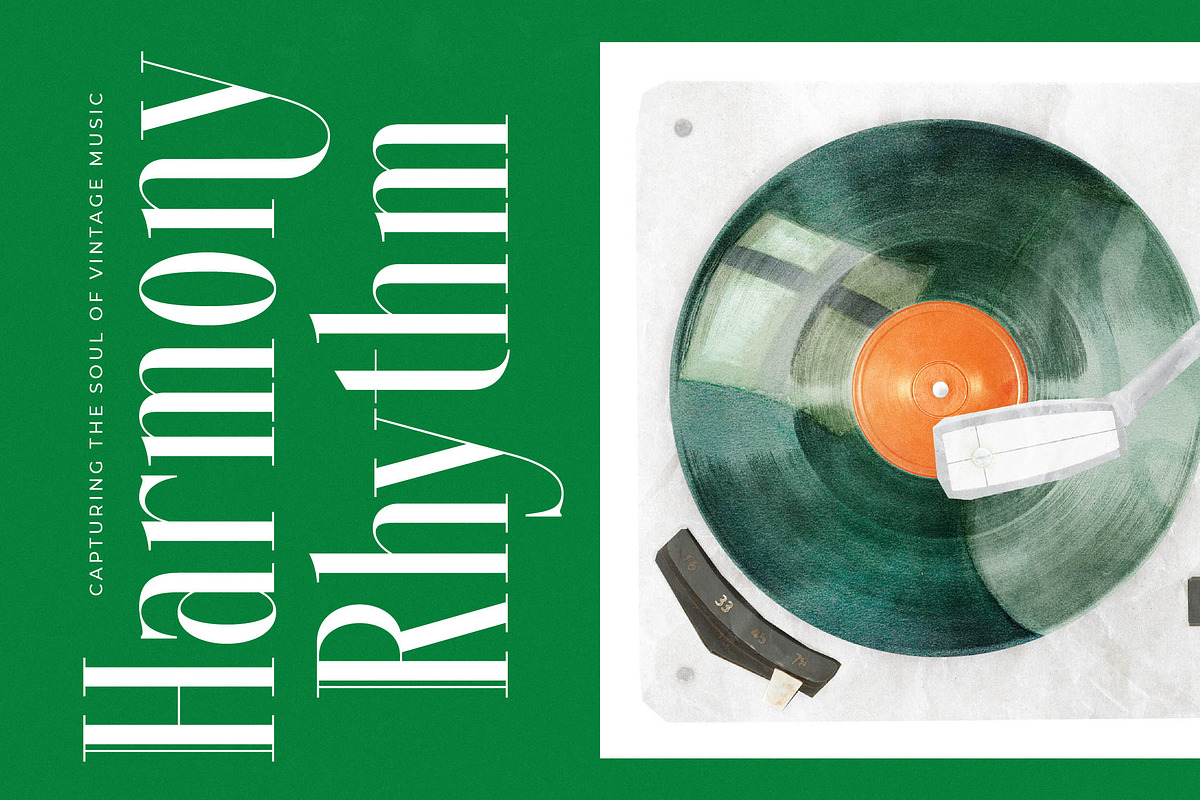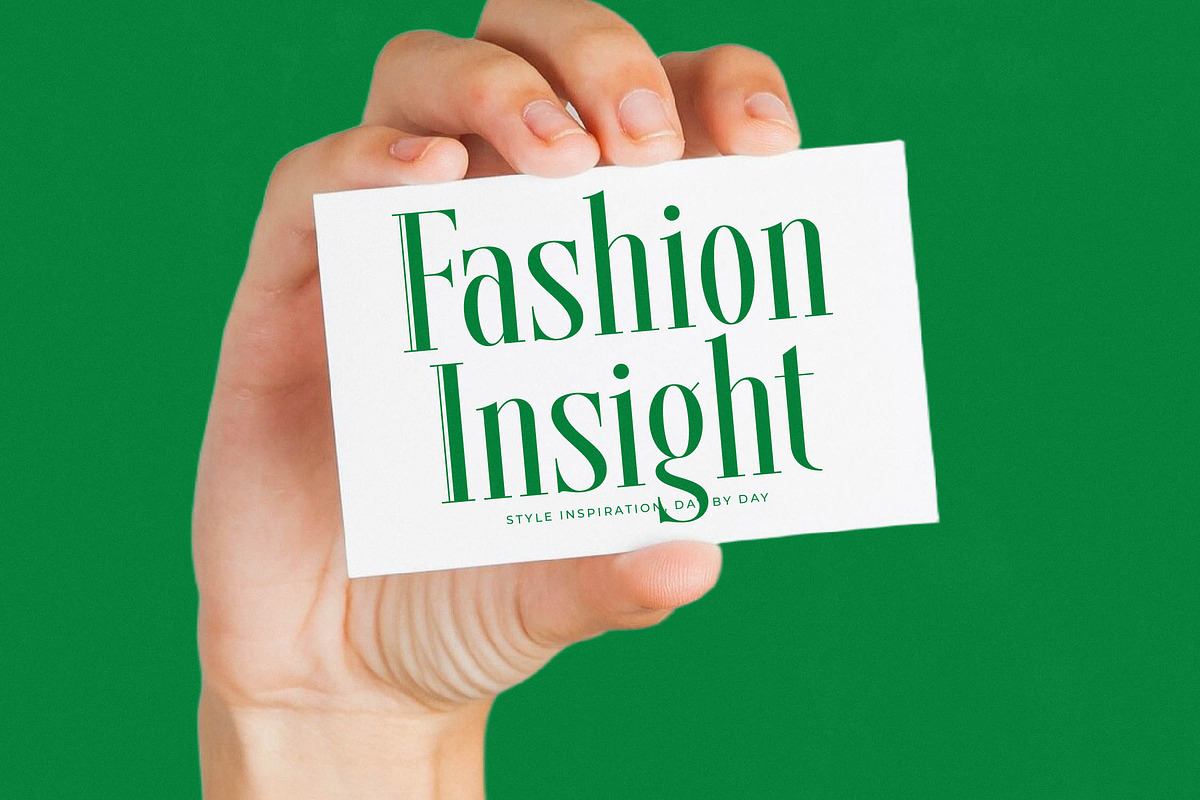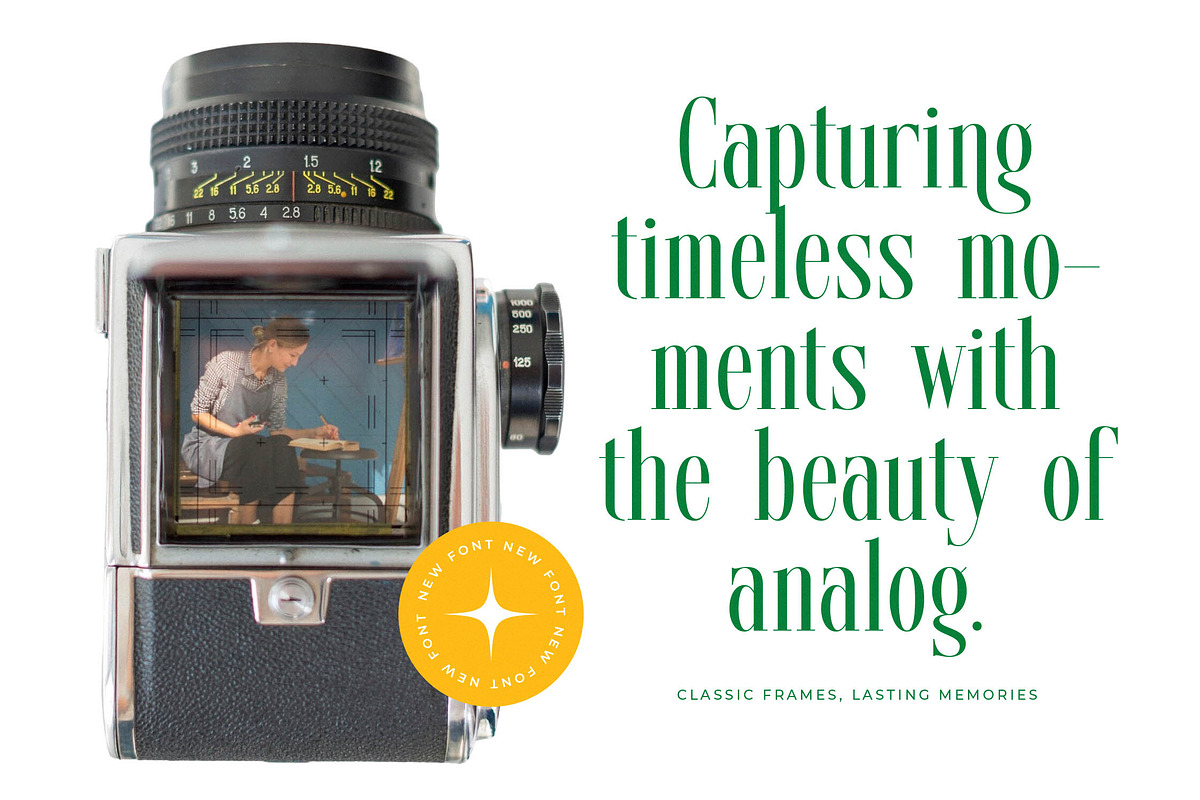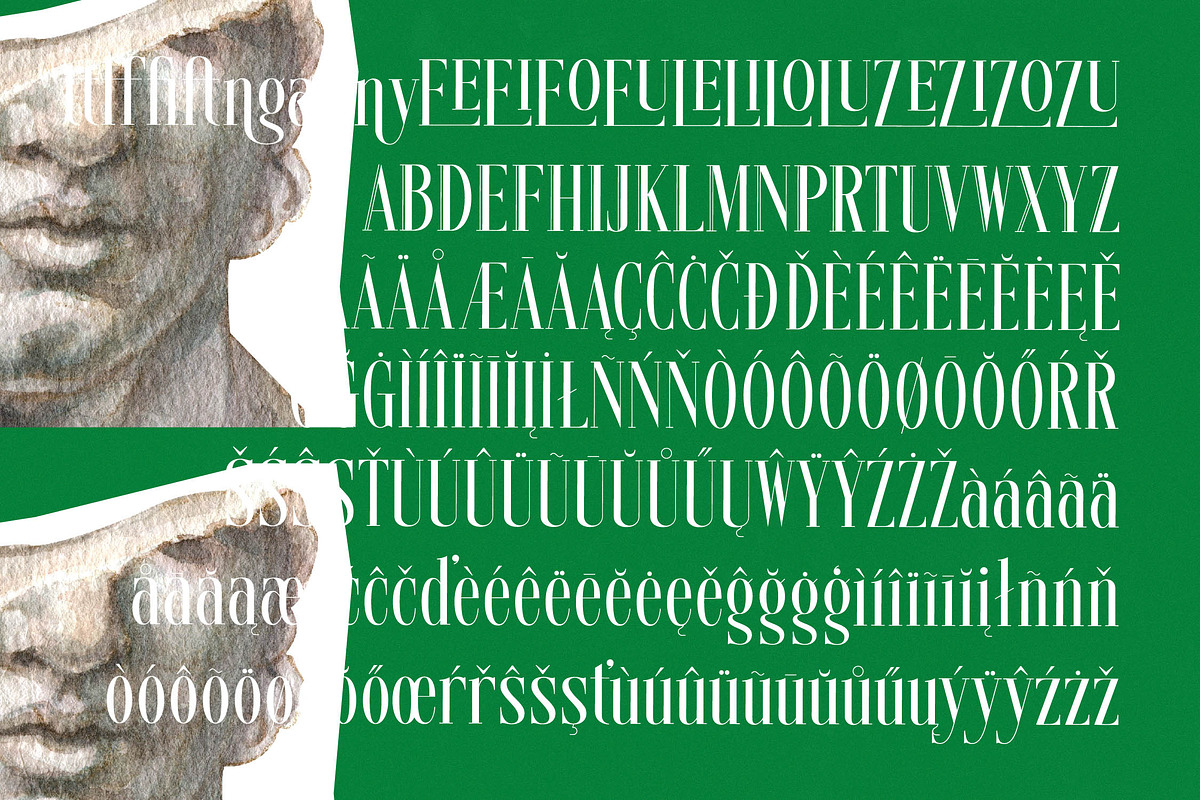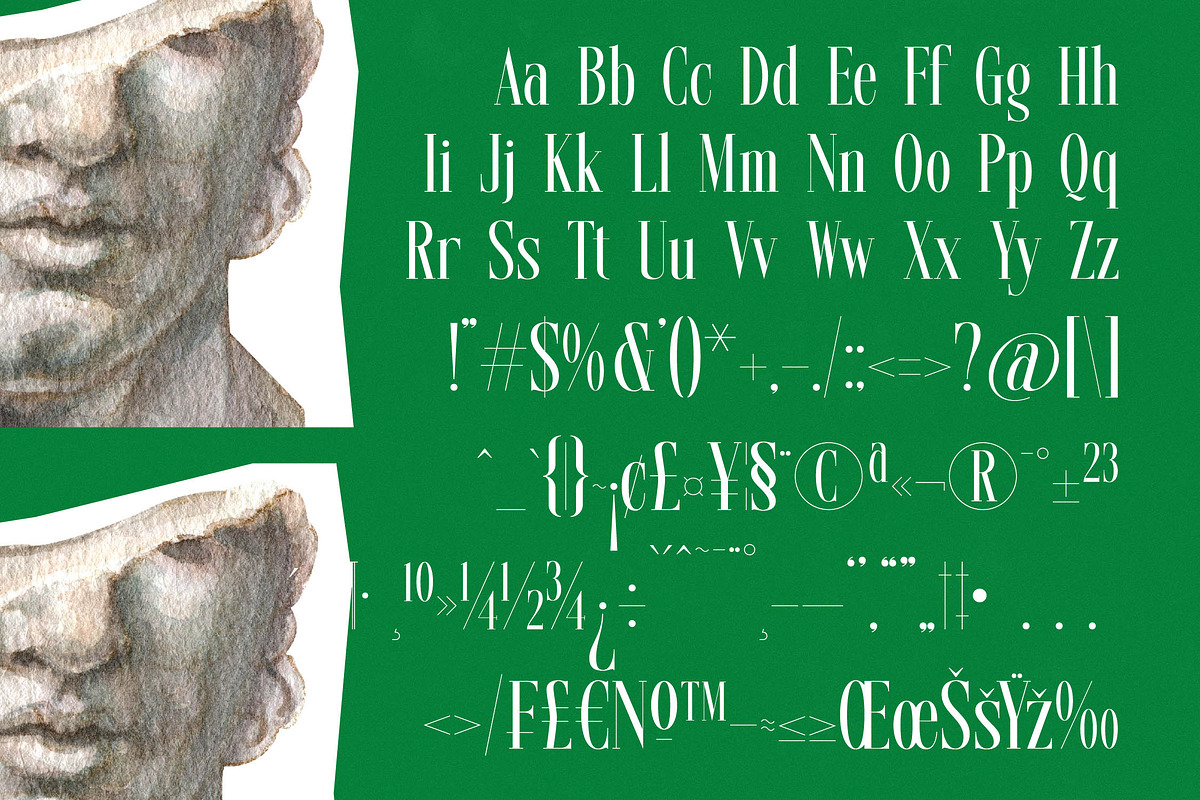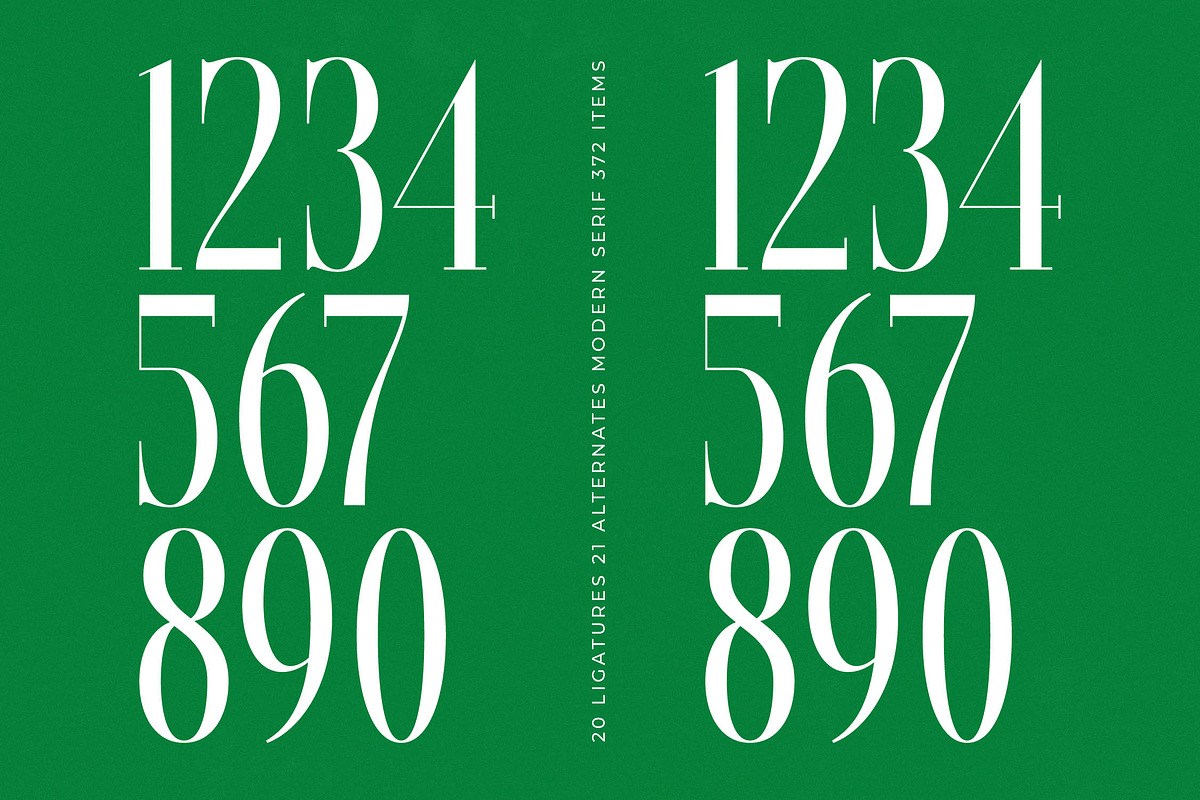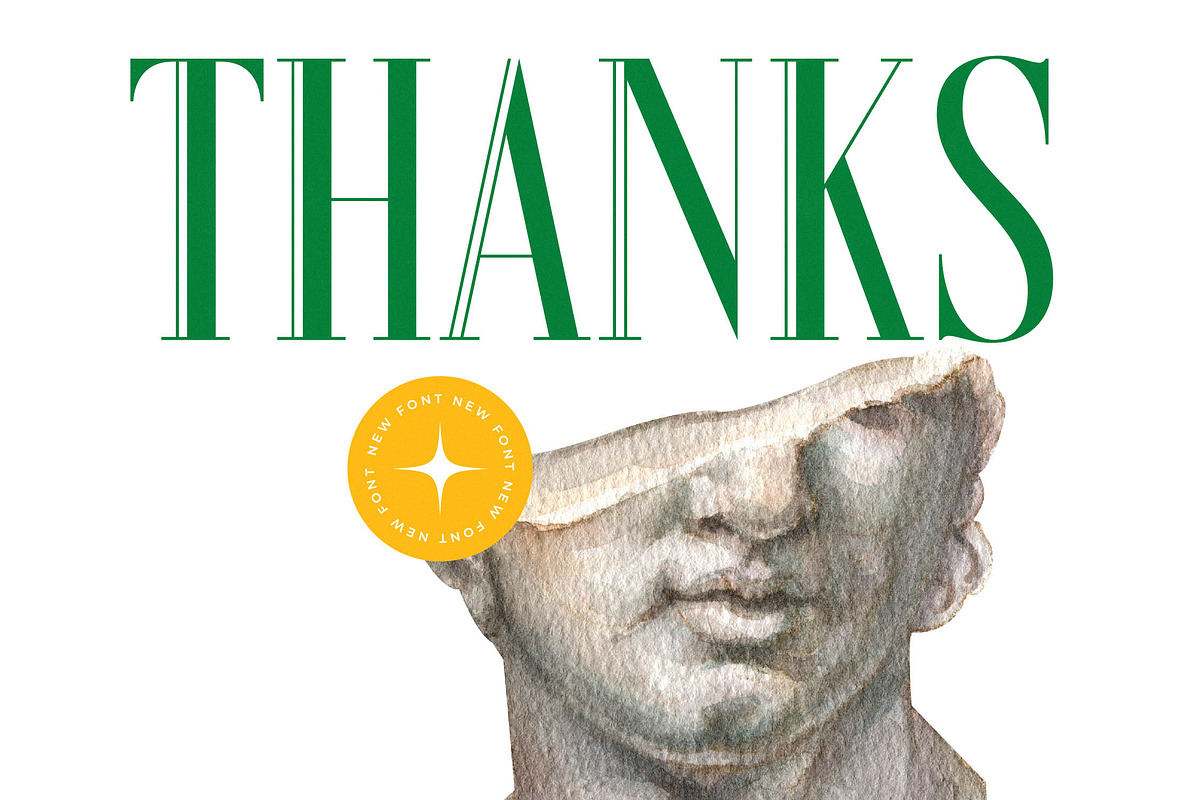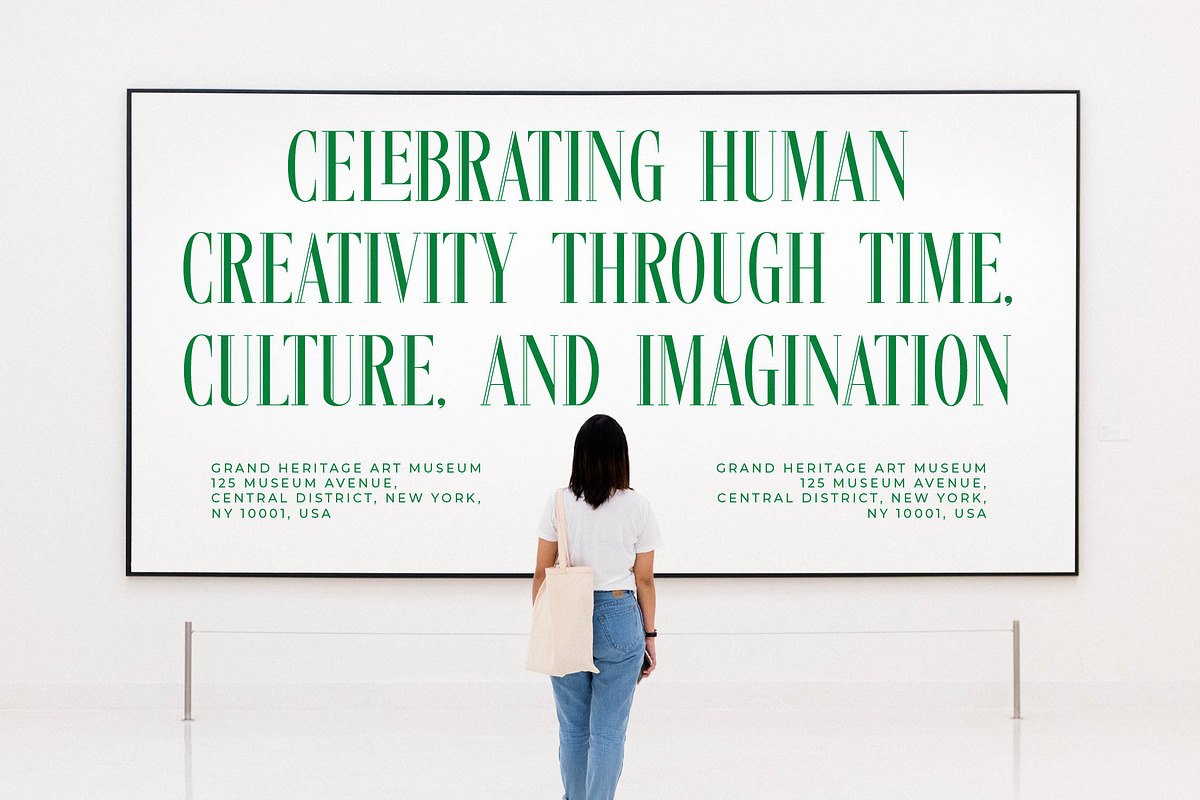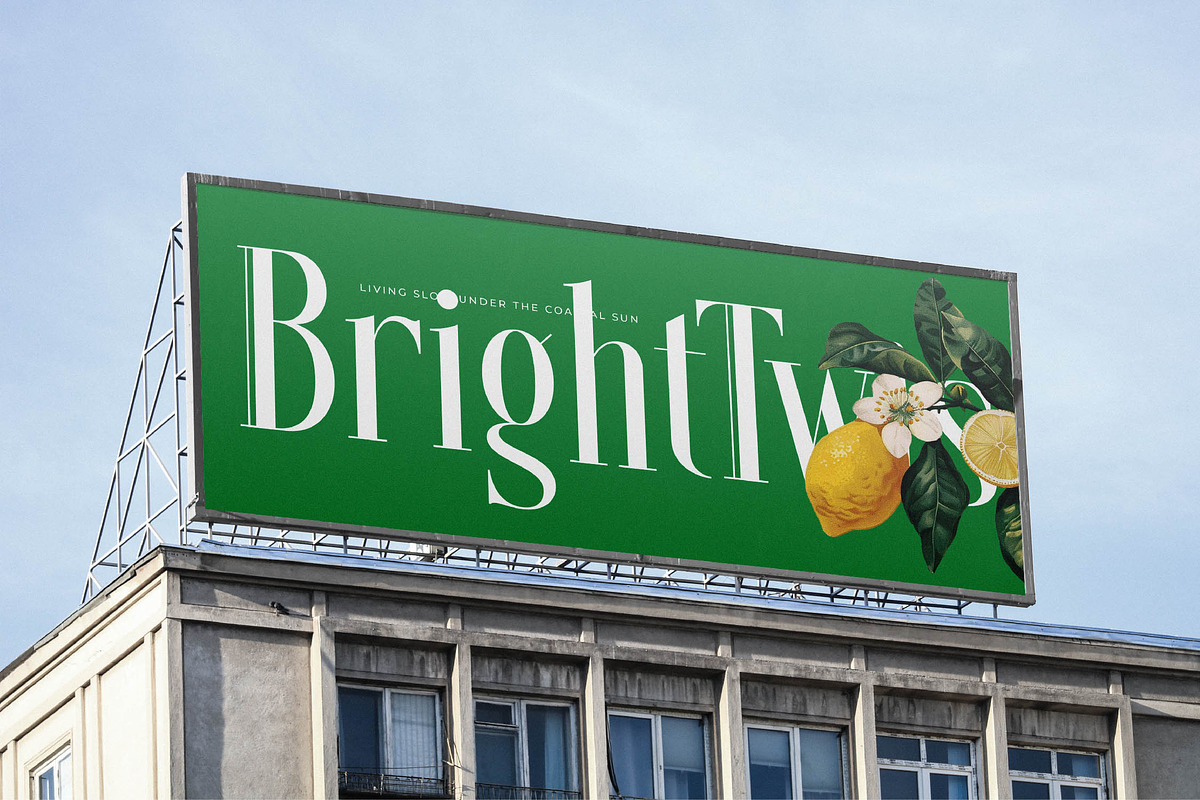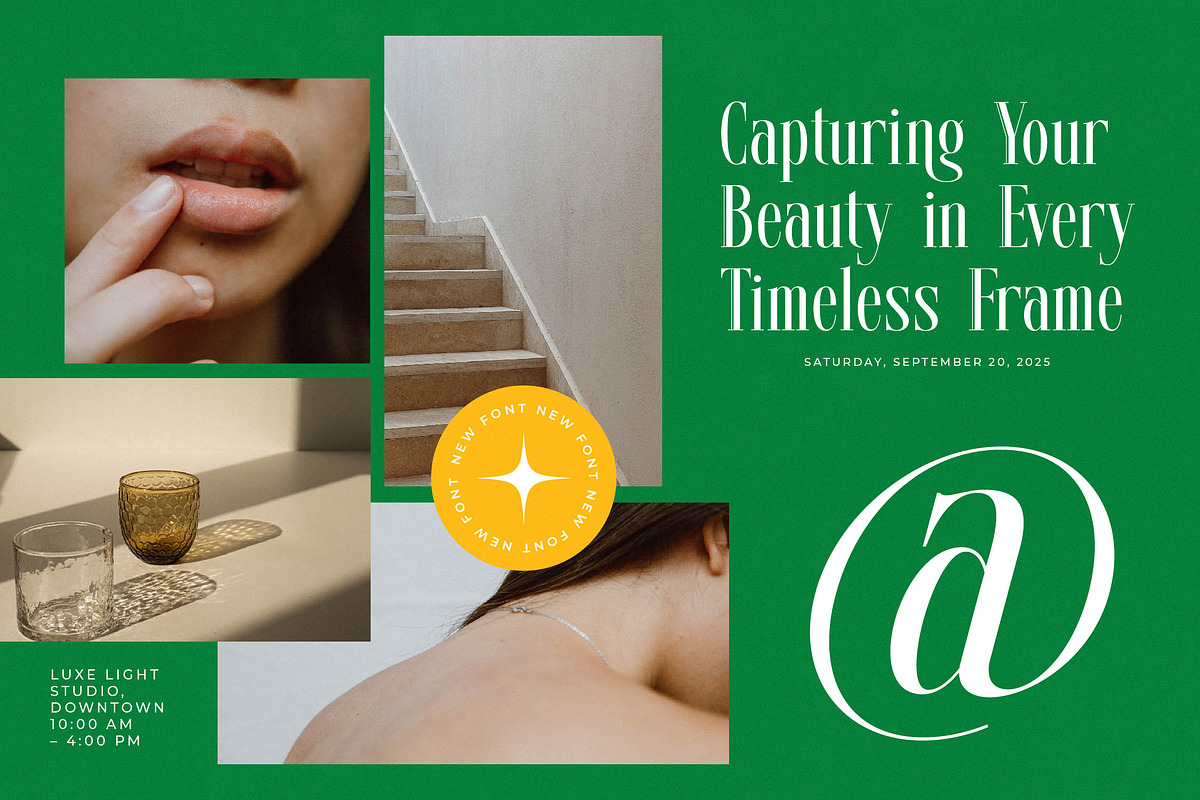
Glomreis Modern Editorial Serif
Step into a world where classical sculpture meets contemporary aesthetics with the striking presence of Glomreis. This typeface is designed to command attention while maintaining an air of effortless grace and editorial sophistication.
Inspired by the chiseled perfection of Hellenistic art and the refined silhouettes of mid-century high-fashion magazines, this font evokes a sense of museum-quality craftsmanship. It bridges the gap between the historical weight of stone-carved letters and the fluid needs of digital-first design.
Glomreis delivers a commanding presence through its modern serif display qualities and luxury typography soul. Its high-contrast serif strokes create an immediate branding impact that defines it as a premier editorial font for those who refuse to blend into the background.
Perfectly aligned with the current modern serif trend, this typeface answers the growing market demand for character-driven typography in a sea of sterile minimalism. It represents a bold shift toward editorial display fonts that prioritize artistic flair and structural elegance over simple utility.
From high-concept logo design to sophisticated global branding suites, this font excels in high-pressure editorial layouts and luxury product packaging. It serves as an exquisite choice for bespoke wedding invitations and high-street fashion campaigns looking for a distinct visual voice.
This comprehensive package includes over 370 glyphs, featuring 20 unique ligatures and 21 stylistic alternates to help you customize your layouts. It provides full multilingual support with extensive international characters and graceful swashes for a truly global design reach.
- Ligature 20 Alternate 21